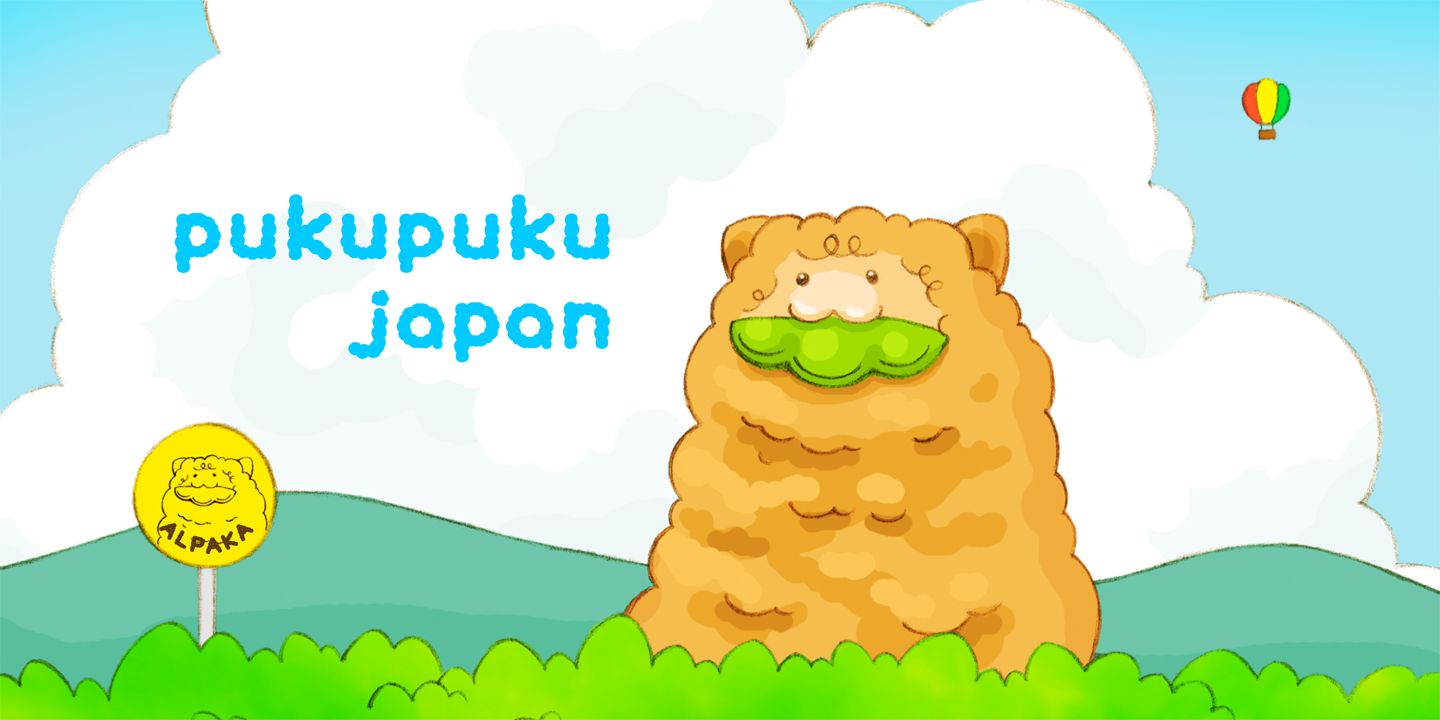
Pukupuku Japan Font is ideal for anime merchandise, Japanese restaurant branding, manga comic titles, kawaii product packaging, Asian fusion marketing materials, gaming interface design, pop culture posters, street fashion labels, bubble tea shop signage, and creative projects that celebrate Japanese pop culture and contemporary aesthetic trends.
What makes Pukupuku Japan Font so exciting is its perfect capture of modern Japanese design sensibility with playful bubble-like characteristics that instantly evoke joy and energy. This typeface brilliantly combines traditional Asian typography principles with contemporary pop culture elements, creating a unique visual language that appeals to both Eastern and Western audiences seeking authentic yet approachable Japanese style.
Pukupuku Japan Font family includes multiple engaging variations: Regular, Bold, Light, Outline, Shadow, 3D, Gradient, and Kawaii versions. Each style maintains the font's distinctive Japanese pop culture essence while offering different levels of visual impact, allowing designers to create cohesive branding that captures the spirit of modern Japan.
The cultural authenticity of Pukupuku Japan Font Free Download makes it exceptionally valuable for brands connecting with Japanese culture enthusiasts. This font successfully bridges traditional craftsmanship with modern pop aesthetics, ensuring projects feel both genuine and contemporary. Its versatile nature works beautifully across digital platforms and print applications, while its distinctive character helps brands tap into the global appreciation for Japanese design philosophy and kawaii culture.